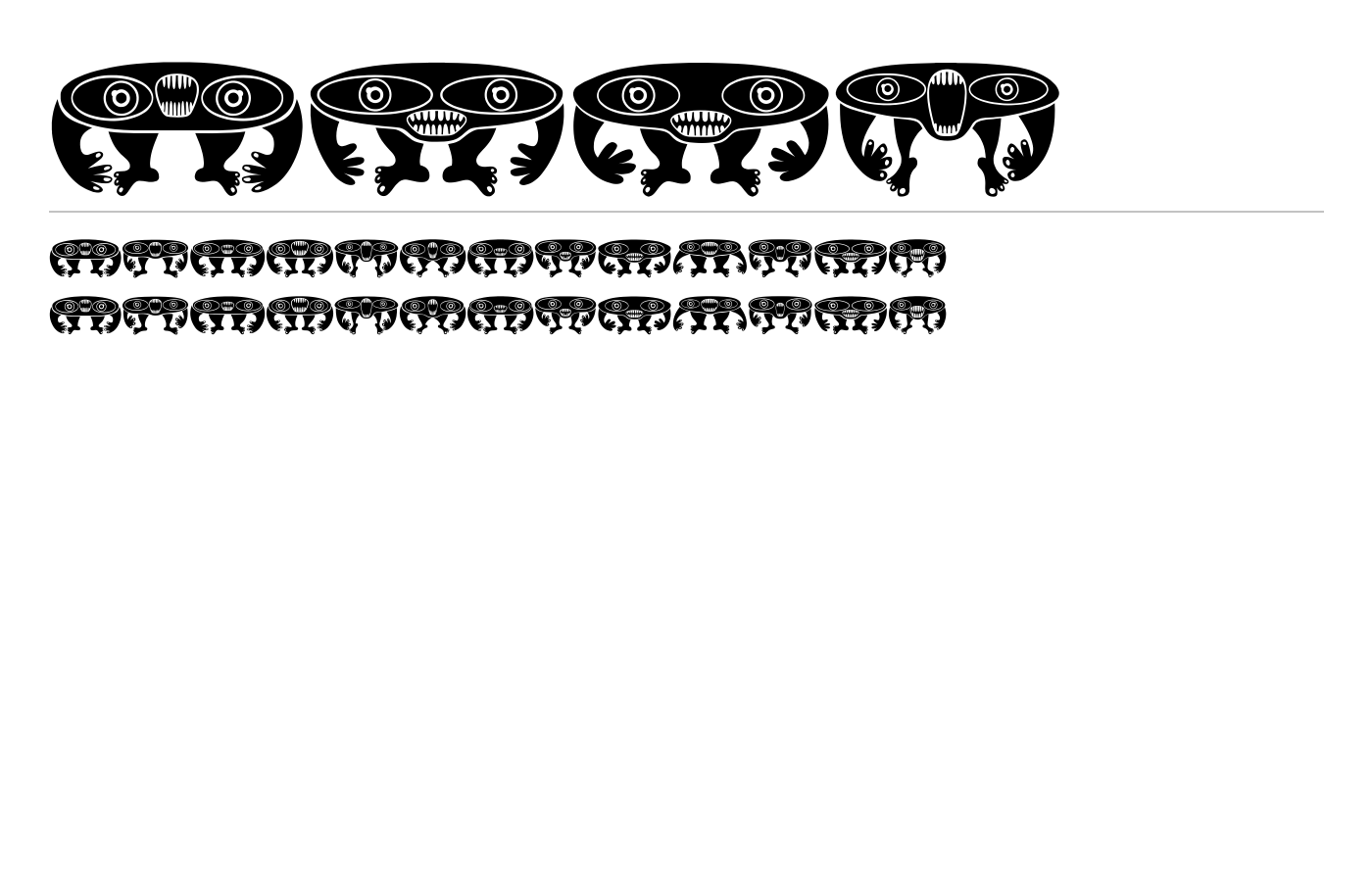
Aliens Font is a highly decorative and whimsical display typeface characterized by its bold, solid black shapes that form quirky alien-like creatures. This unique font breaks traditional typographic rules, focusing instead on playful and imaginative visuals that evoke a fun, otherworldly mood, making it ideal for creative branding, poster designs, or projects seeking a distinctive and eye-catching look. Its heavy weight and conceptual style work best at large sizes where its intricate details can be fully appreciated.
Aliens Font
About Aliens Font
| Font family | Aliens Font |